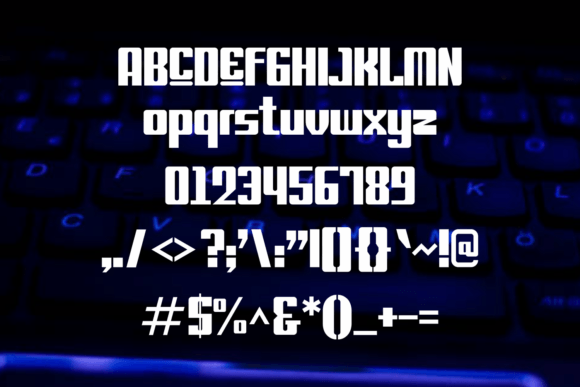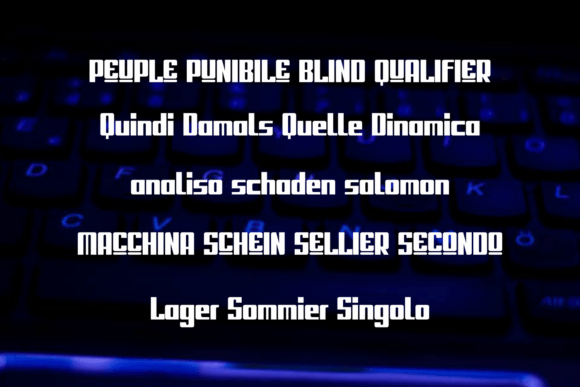
Discover Your New Creative Partner: Ansahas Font
Have you ever stared at a blank canvas, unsure of where to start your next design project? We’ve all been there. The blank page can be intimidating, but what if you had the perfect companion to help spark your creativity? Enter Ansahas Font, a cool and unique sans serif font that’s about to become your go-to partner in crime.
This versatile font is designed to elevate any creation, whether you’re working on a logo, brochure, or website. Its sleek and modern design makes it perfect for a wide range of topics, from fashion to technology. With Ansahas Font, you’ll have the freedom to express yourself without being limited by a traditional font. Whether you’re a seasoned designer or just starting out, this font is an incredible asset to your library.
- Unique Characteristics: Ansahas Font features a unique blend of modern and traditional elements, with a distinctive flair that sets it apart from other sans-serif fonts.
- X-Height and Line Spacing: The font’s x-height is optimized for readability, and the line spacing is carefully calibrated to ensure a comfortable reading experience.
Ansahas Font Review
Ansahas Font is a clean and modern sans-serif font that caught my attention for its potential to elevate digital designs. Here’s a rundown of what works well and what’s missing:
- Clean Lines – Ansahas Font features sleek lines and a simple design that makes it easy to read.
- High Legibility – The font’s x-height is well-balanced, making it perfect for body text and headings.
- Flexibility – Ansahas Font comes in various weights and styles, allowing designers to experiment with different typography combinations.
- Lack of Personality – Ansahas Font feels somewhat generic and doesn’t bring a unique personality to the design.
- Limited Expressiveness – The font’s simplicity can make it feel flat and unengaging in certain contexts.
- No Distinctive Touch – Ansahas Font blends in with other sans-serif fonts, making it hard to stand out in a crowded market.
While Ansahas Font is a solid choice for digital designs, it doesn’t particularly shine in any area. It’s a safe, reliable option that will get the job done, but it won’t leave a lasting impression. If you’re looking for a versatile, easy-to-read font, Ansahas might be worth considering. However, if you want a font that truly makes a statement, you might want to look elsewhere.
Tips for Getting the Most Out of Ansahas Font
To get the most out of the Ansahas font, use it sparingly to add emphasis to key text elements. Combine it with other fonts to create a visually appealing contrast. Experiment with different font sizes and styles to create a unique look.
The Ansahas font is ideal for use in wedding invitations, luxury branding, and high-end marketing materials. It’s also a great choice for use in book titles, magazine headings, and other print materials where a touch of elegance is desired.